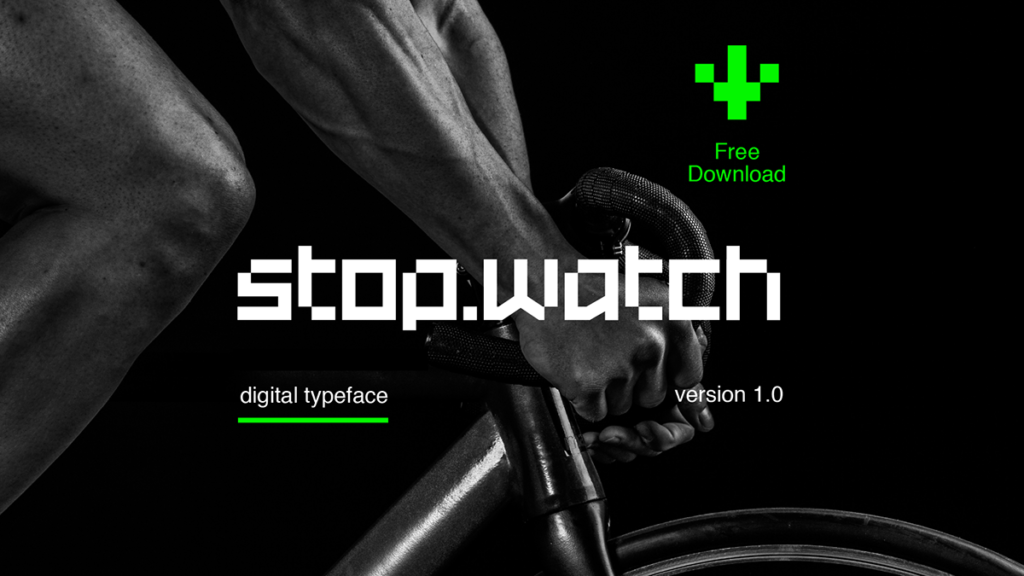
Stopwatch Free Typeface
Expanding the concept a typographic experiment designed initially as part of an on-air graphics pitch The wordmark was developed further to a full alphabet.
Stopwatch Free Typeface